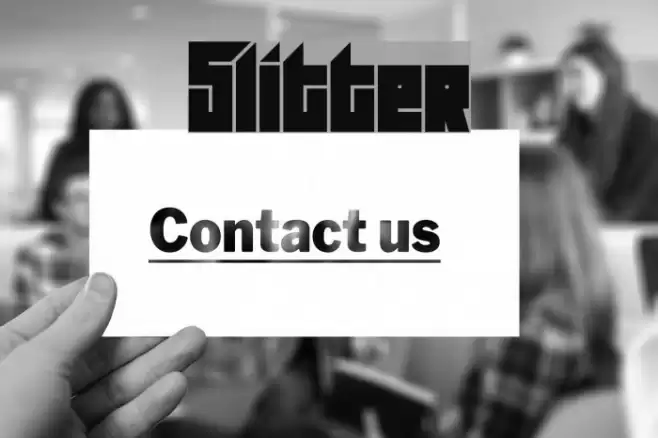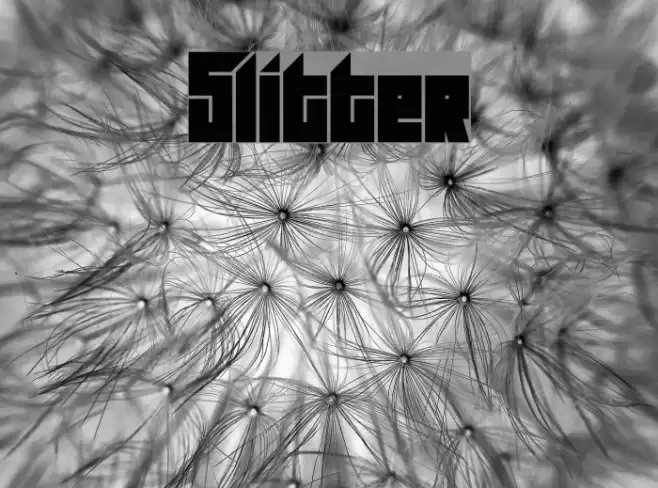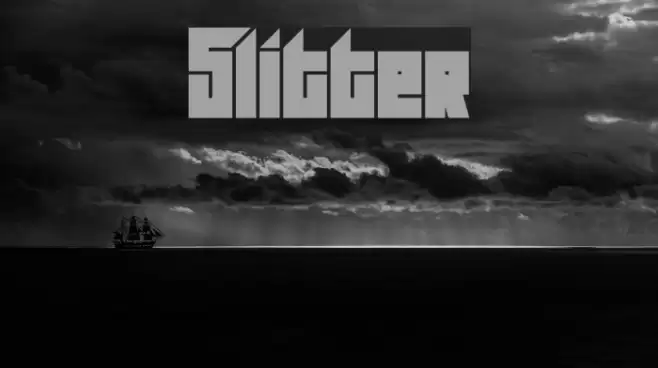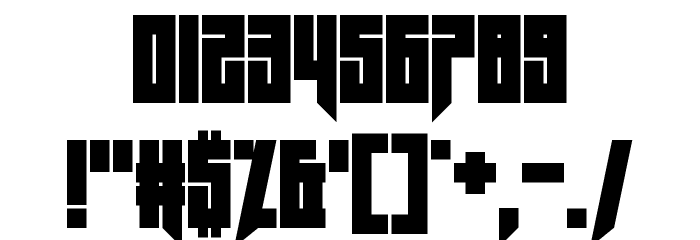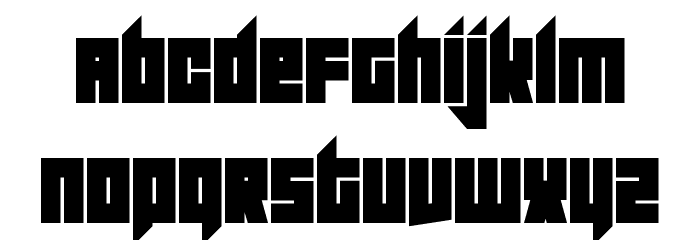
Slitter Font
Slitter Description
This font features a bold, geometric design with sharp angles and a blocky appearance. The characters are constructed with a consistent thickness, creating a uniform and cohesive look. The uppercase and lowercase letters maintain a similar style, emphasizing the font's modern and edgy aesthetic. Numbers and special characters are designed to match the angular and robust style of the alphabet, making this font suitable for attention-grabbing headlines and titles. Its distinctive and aggressive appearance makes it ideal for projects that require a strong visual impact.
A bold, geometric font with sharp angles and a blocky design from Uncategorized fonts.
- Proposed Projects: Ideal for posters, album covers, video game graphics, and branding that requires a strong, modern look.